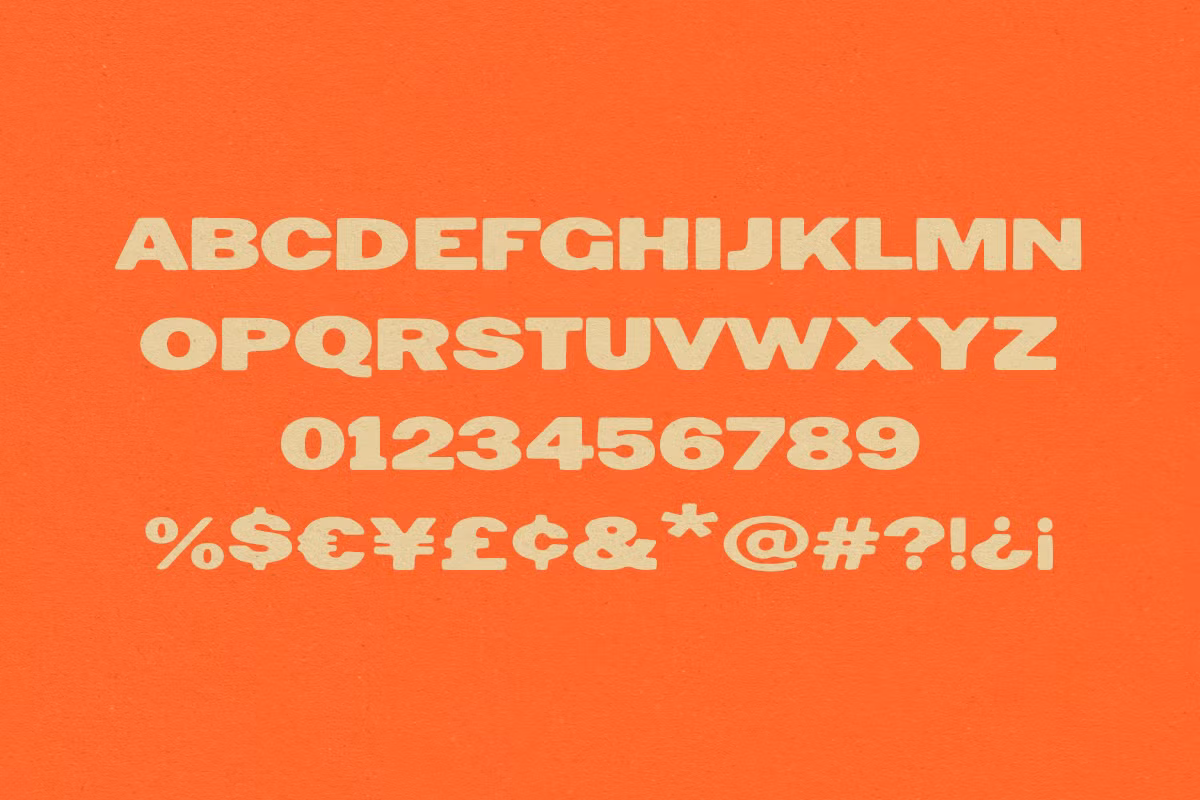
Pimento Typeface: Versatile Bold Sans-Serif Font for Any Project
Introducing Pimento Typeface
Pimento is a typeface that really stands out – it’s bold, simple, and easy to read. What makes it special is that it only has uppercase letters, which gives it a unique look. The lines are clean and sleek, making it perfect for using on computers or in print. A lot of work went into creating Pimento, so it’s a great choice for designers, marketers, and anyone who wants to make a statement with their words. It’s versatile, too, so you can use it for all sorts of projects, from big signs to small messages. Overall, Pimento is a great typeface for anyone who wants to add some excitement to their design.
Design Style of Pimento Typeface
The design of Pimento is characterized by its boldness and simplicity. As a sans-serif font, it lacks the decorative elements found in serif typefaces, giving it a modern and streamlined appearance. The uppercase letters are designed to be impactful, making Pimento perfect for headlines, logos, and promotional materials. Each letter is crafted with attention to detail, ensuring that they maintain readability even at larger sizes.
Pimento’s simple shapes and balanced proportions make it a versatile font that works well in many different design situations, from company logos to artistic projects. Its clean look means it can be paired with fancy or plain fonts, which is why many designers like to use it. This flexibility is what makes Pimento a great choice for a wide range of design needs, as it can easily adapt to different styles and themes. Whether you’re working on a corporate brand or a creative project, Pimento’s straightforward aesthetic makes it a reliable option that can help you achieve your design goals.
Key Type Features
- Bold Weight: Pimento offers a solid presence, making it ideal for grabbing attention.
- Uppercase Letters: The exclusive use of uppercase letters adds a sense of authority and impact.
- Multiple Language Support: Pimento includes support for various languages, ensuring that your designs can reach a broader audience.
- Punctuation Variety: With a full set of punctuation options, Pimento allows for complete typographic expression.
Use Cases for Pimento Typeface
Pimento is a really versatile tool, which means it can be used in lots of different situations. Let’s take a look at some of the ways people commonly use it.
- Branding: Use Pimento in logos and brand materials to convey strength and confidence.
- Advertising: The bold nature of Pimento makes it ideal for advertisements, ensuring that your message stands out.
- Pimento is great for getting people’s attention, which makes it really useful for promoting events. You can use it to create eye-catching posters, flyers, and digital ads that will grab people’s attention and make them want to learn more about your event.
- Web Design: Pimento can be used in web banners, headings, and calls-to-action, enhancing user engagement through its clear presentation.
Pairing Suggestions for Pimento Typeface
While Pimento is striking on its own, it also pairs beautifully with other typefaces to create a harmonious design. Here are some pairing suggestions:
- Pimento and Serif Fonts: Pairing Pimento with a serif typeface like Merriweather can create a dynamic contrast, balancing modern boldness with classic elegance.
- Pimento and Script Fonts: For a more playful design, consider pairing Pimento with a script font like Great Vibes. The boldness of Pimento can enhance the fluidity of the script.
- Pimento and Minimalistic Sans-Serifs: Combining Pimento with a lighter sans-serif font like Open Sans can create a clean and professional look, perfect for corporate designs.
Pimento is not just a font, it’s a game-changer for designers who want to make a statement. This typeface is bold, versatile, and can be used in many different projects. With its strong uppercase letters and support for multiple languages, Pimento is a great choice for branding, advertising, and more. The designers of Pimento have thought of everything, making it a font that can take your projects to the next level. Whether you’re working on a logo, a poster, or a website, Pimento is a great option. It’s easy to use and can help you create a unique and professional look. If you have any questions or need help with your design, don’t hesitate to reach out. The possibilities with Pimento are endless, so why not give it a try and see what you can create? With its extensive use cases and careful design, Pimento is a typeface that can help you achieve your design goals and make your work stand out.